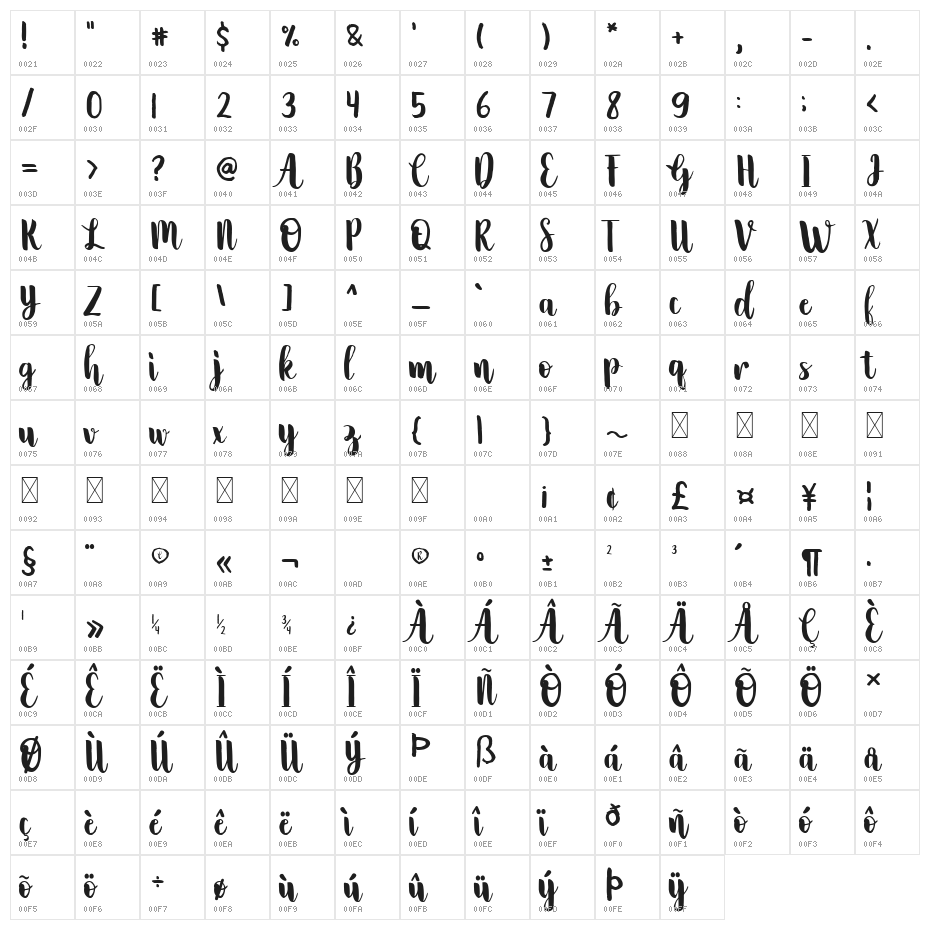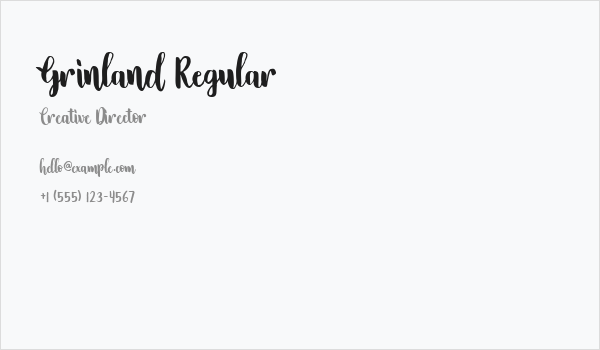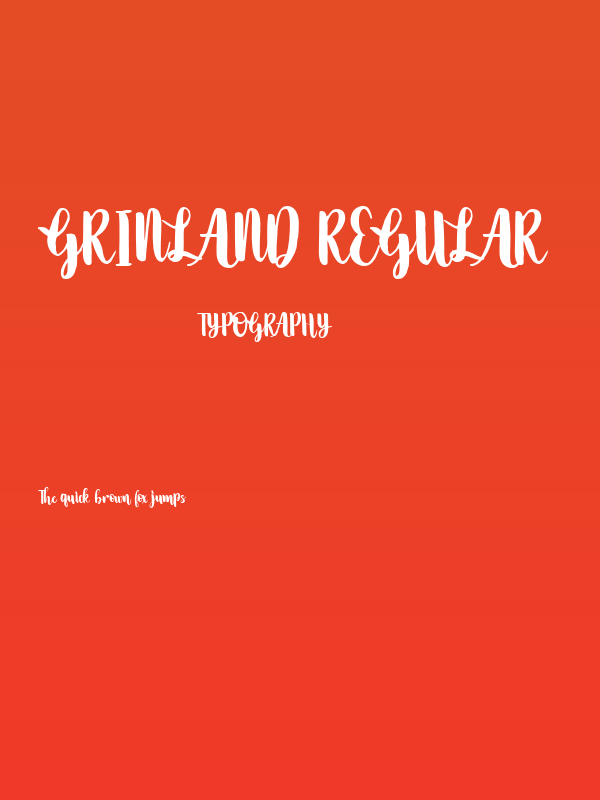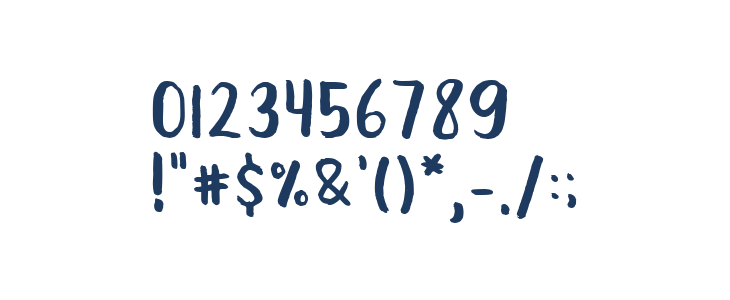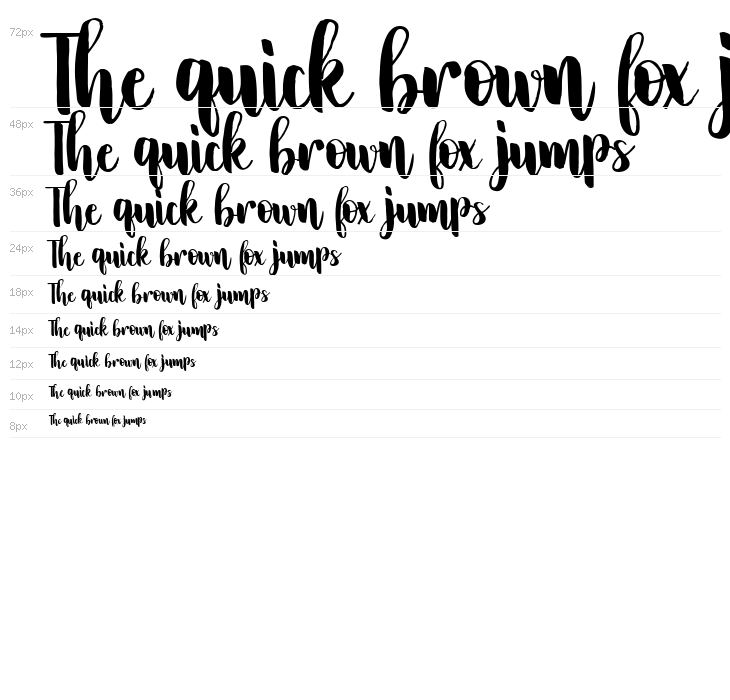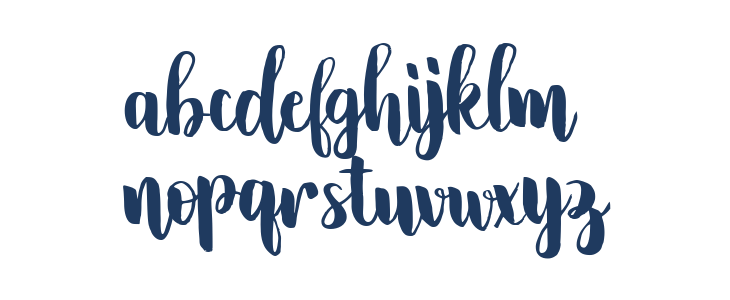
Grinland Regular Font
Grinland Regular Description
This font features a bold and expressive handwritten style, characterized by its flowing and connected letterforms. The uppercase letters are tall and slightly narrow, with a playful yet elegant flair. The lowercase letters maintain a consistent rhythm, enhancing readability while preserving the artistic touch. Numbers and special characters are crafted with the same attention to detail, ensuring a cohesive look across all text elements. The overall appearance is dynamic and lively, making it suitable for creative and informal applications.
| Proposed Projects | Ideal for greeting cards, invitations, branding, and creative posters. |